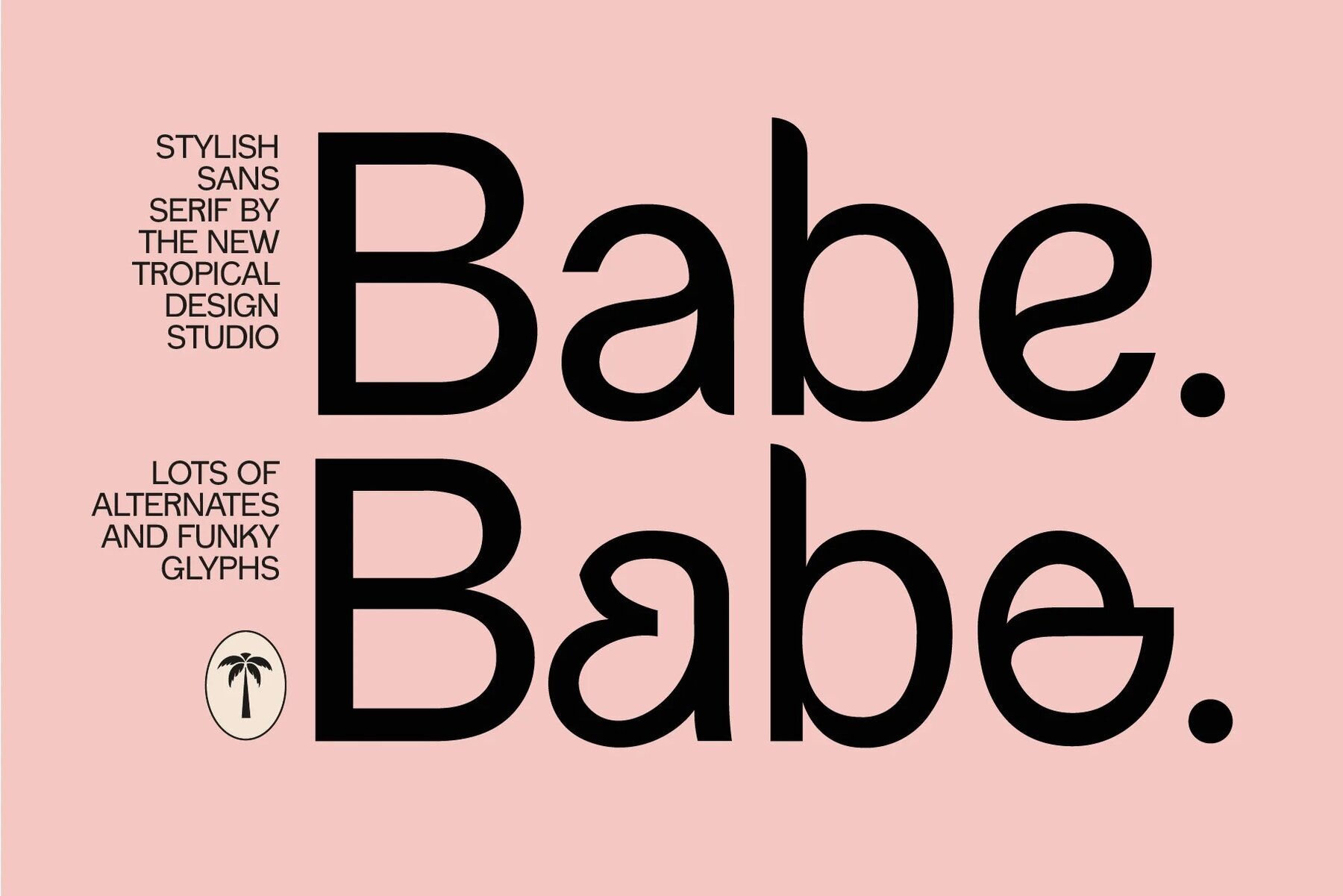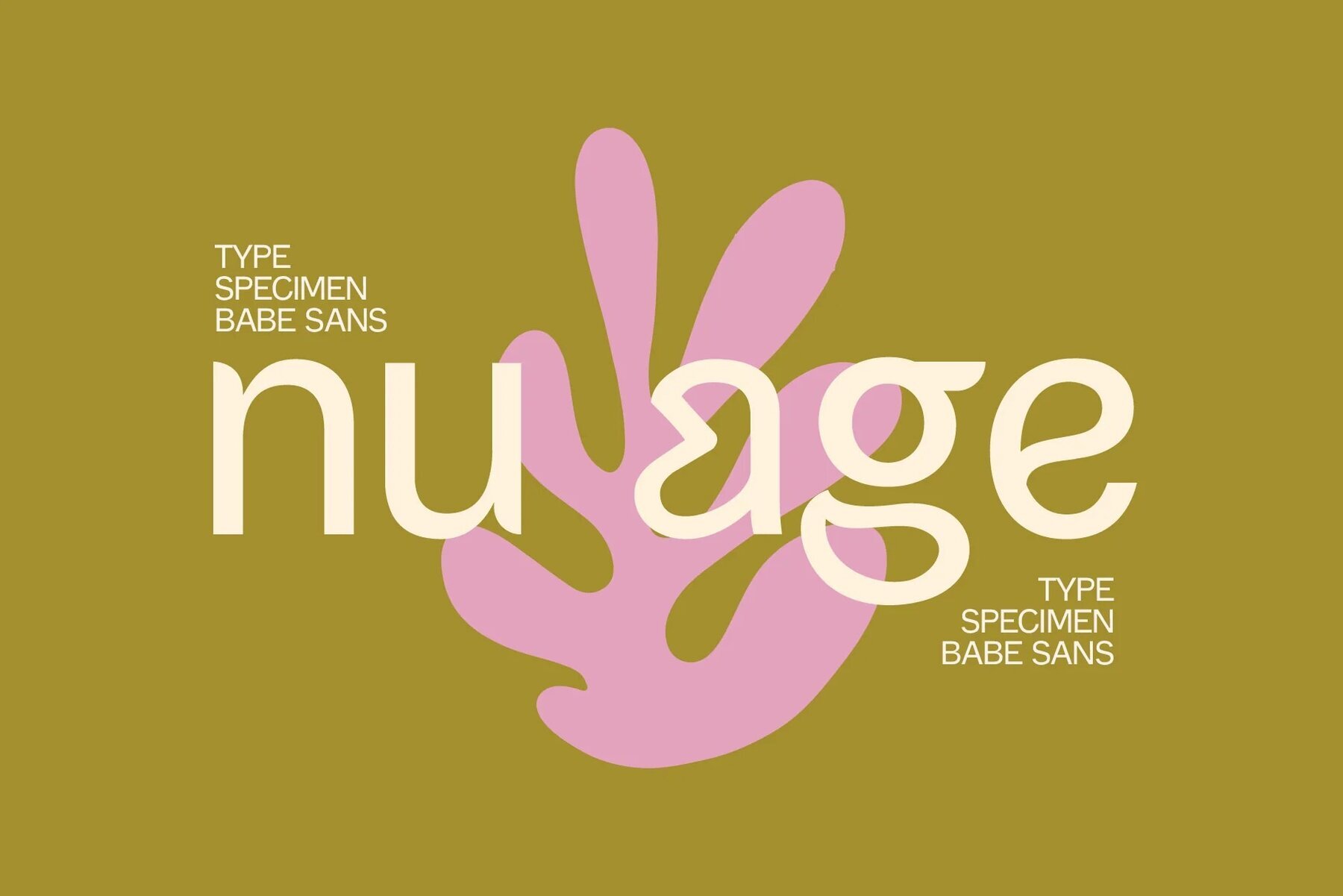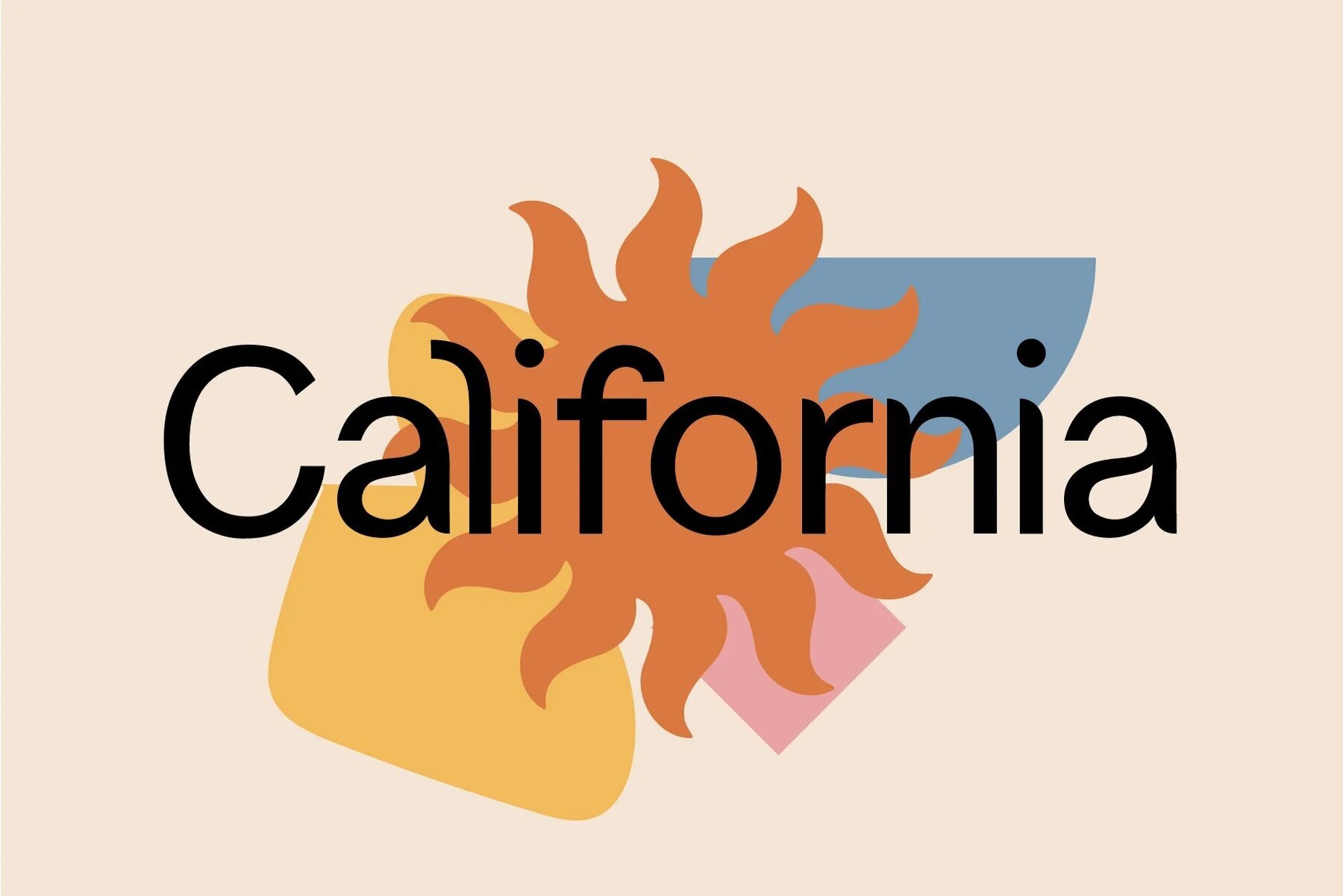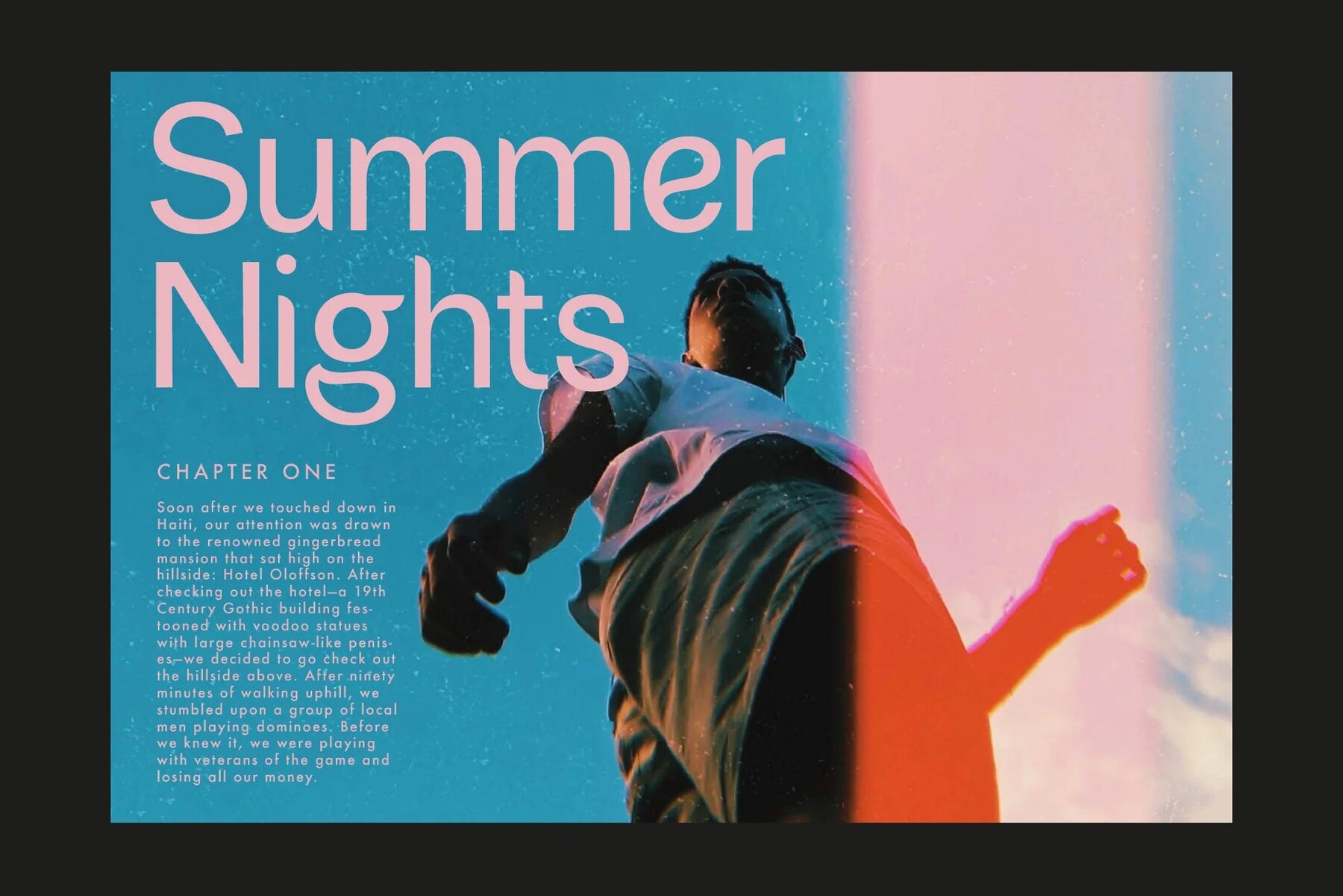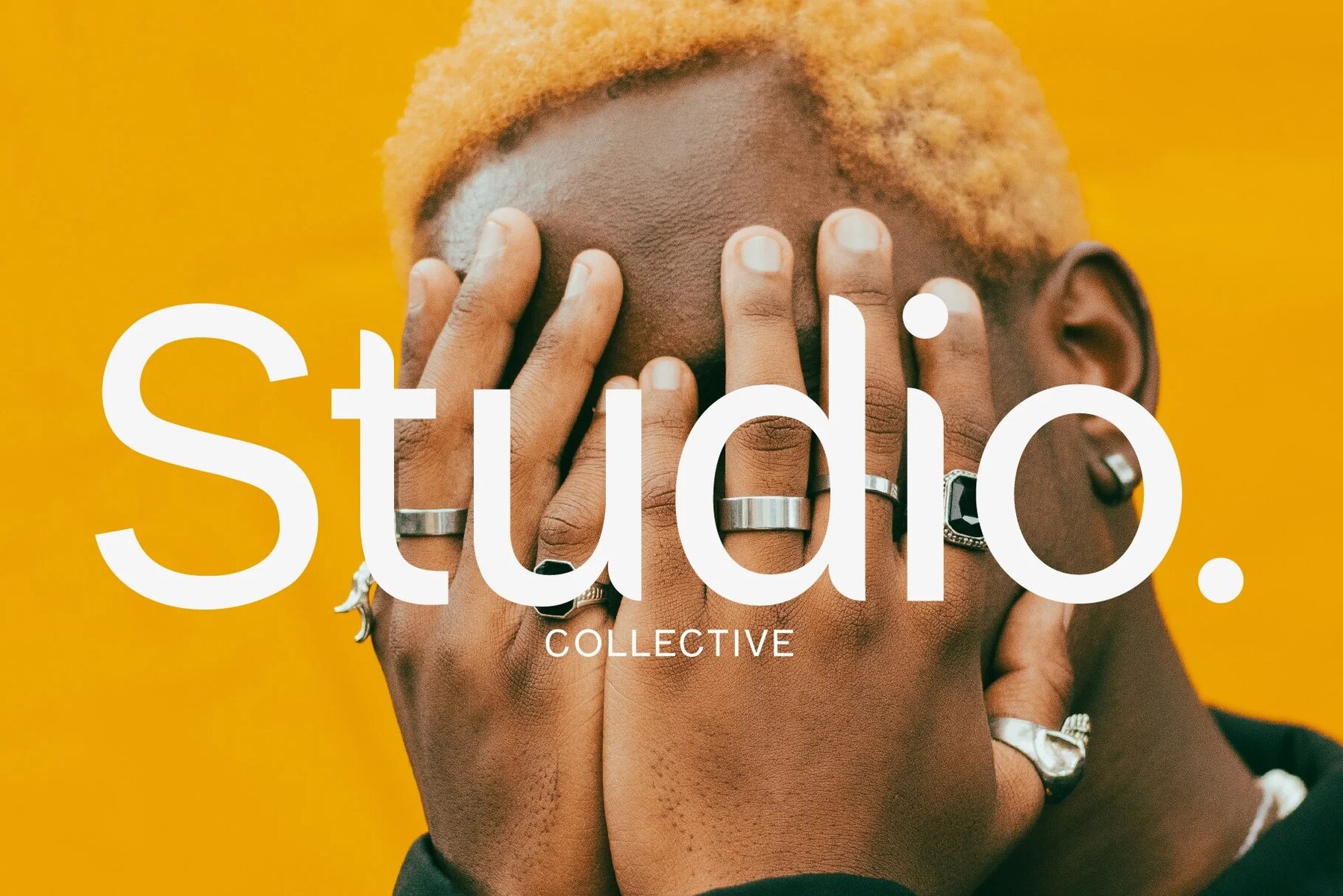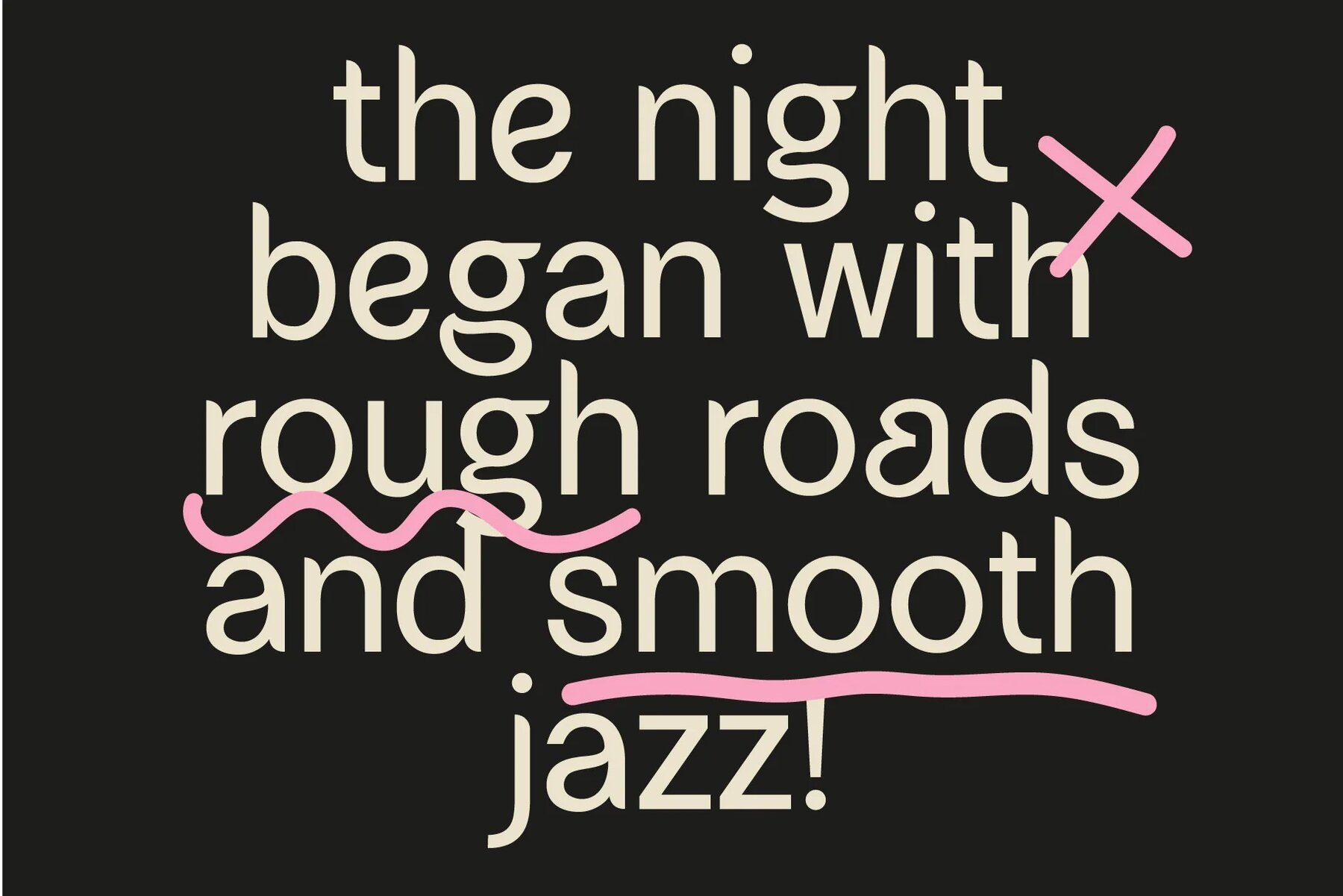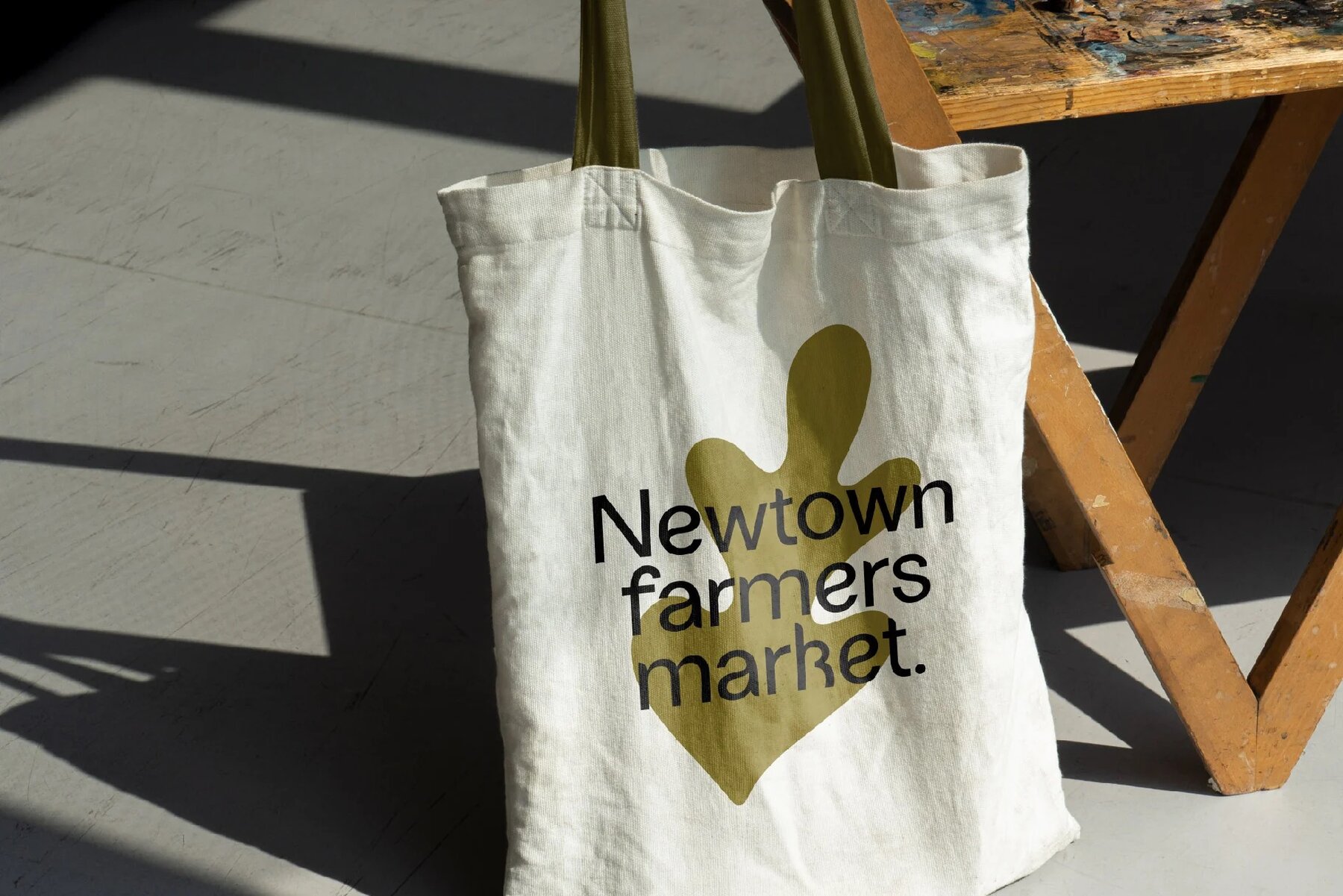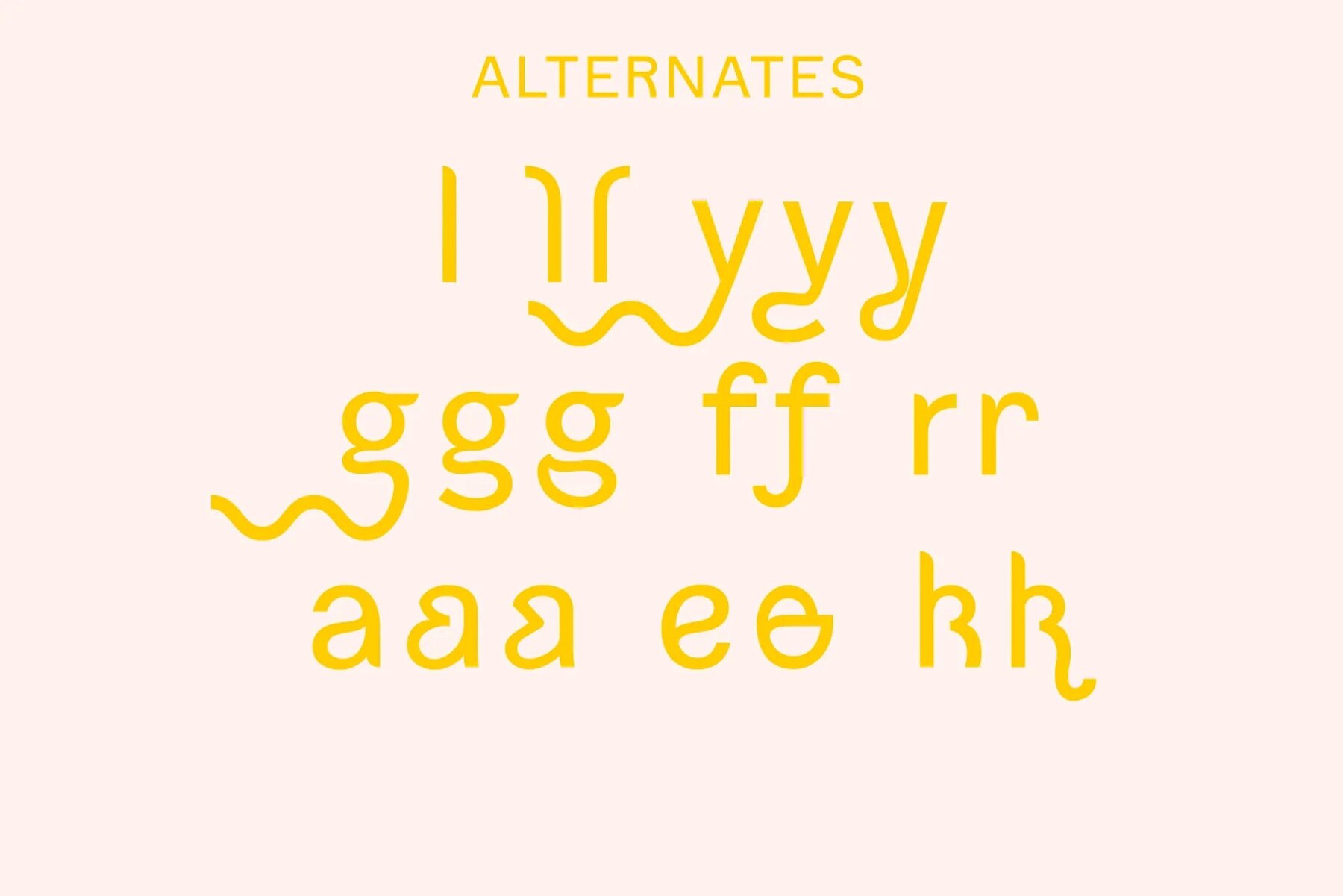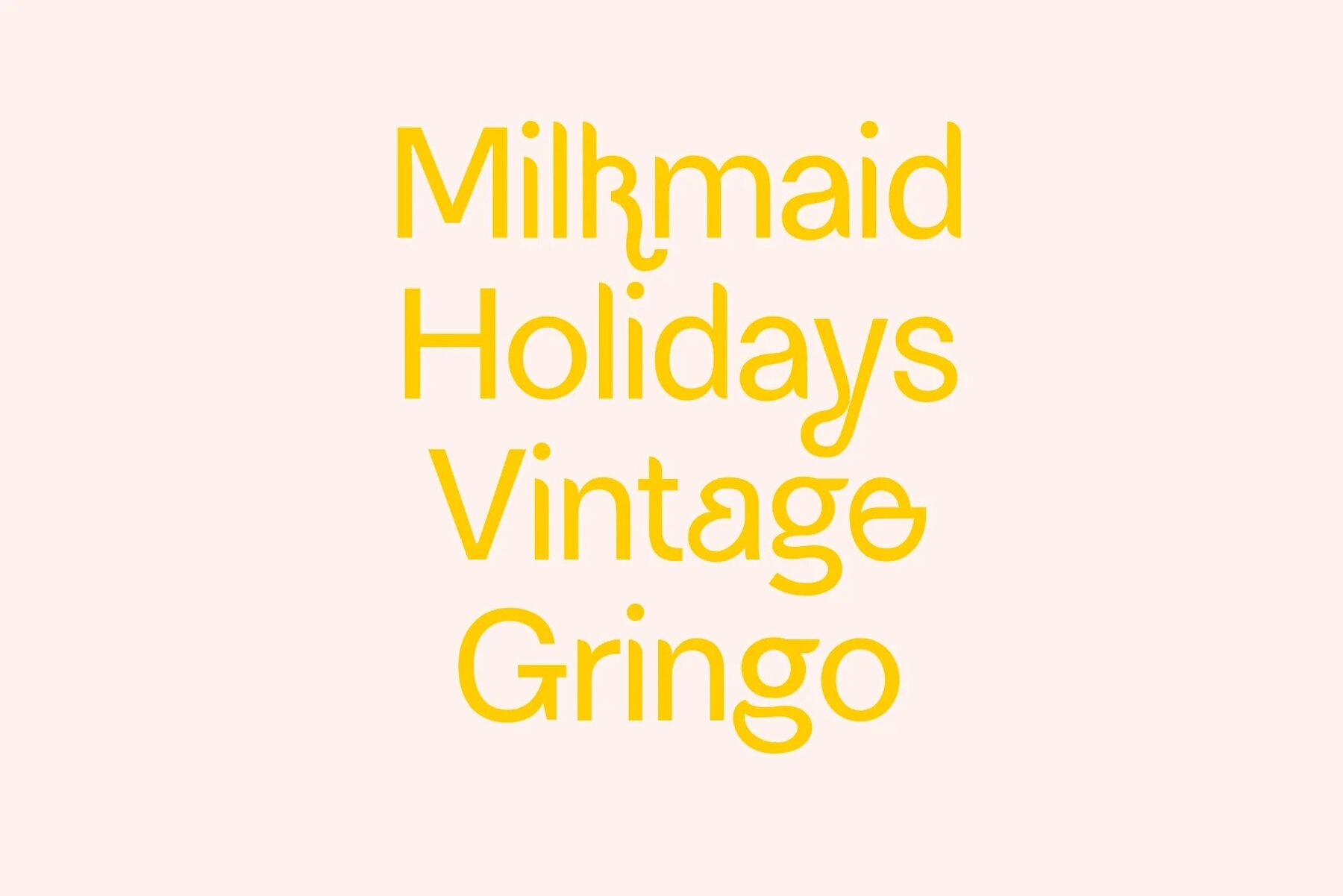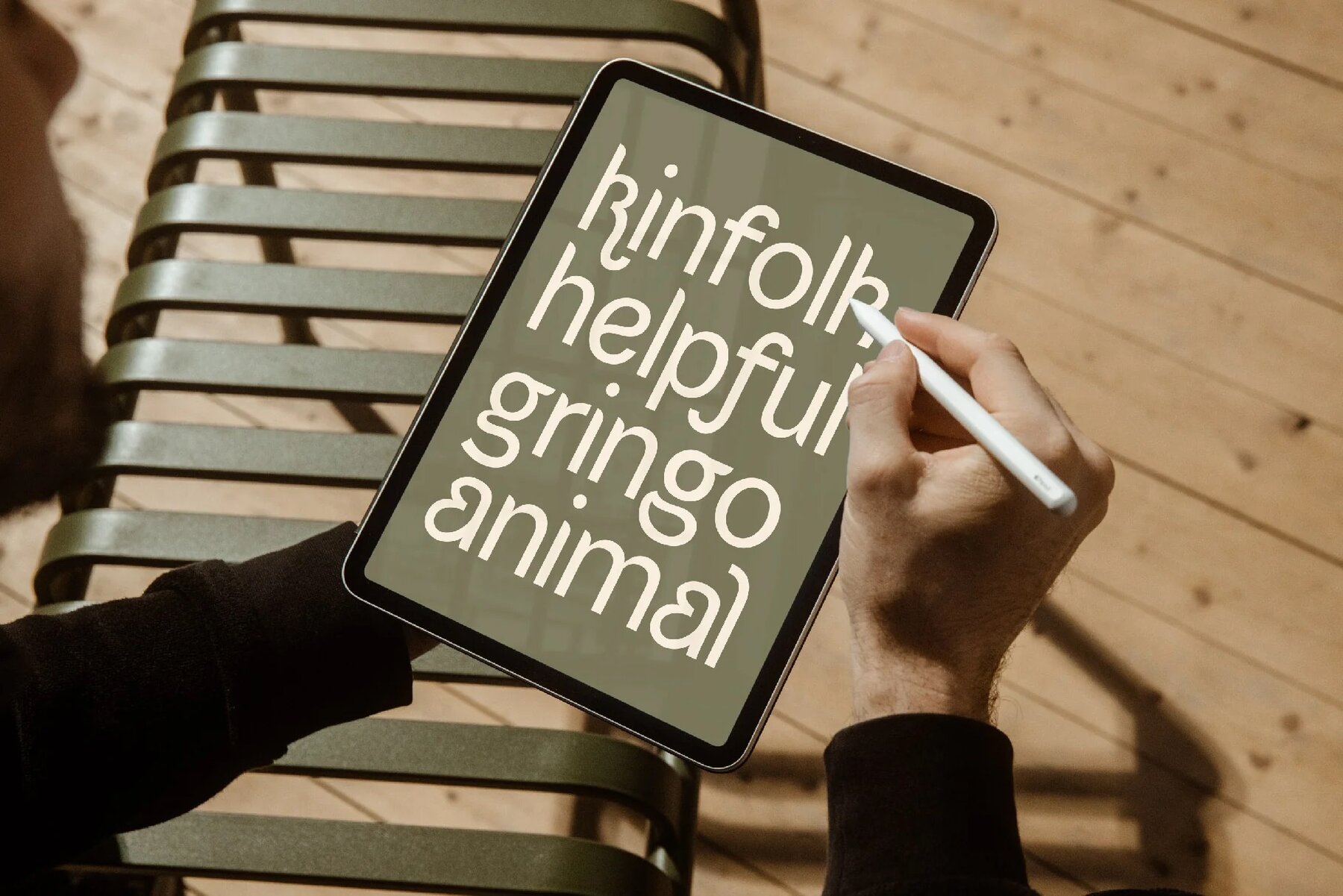
Babe Sans Font
Babe Sans is a charming and bold typeface with stylish curves that add a unique flair to any design. Its clean and legible appearance makes it perfect for both modern and classic projects. The font stands out with its groovy curves and funky alternate characters, ensuring a memorable visual impact.
This typeface includes a variety of non-English glyphs, such as ą, á, â, à, ä, å, ã, æ, ć, ç, ę, é, ê, è, ë, í, î, ì, ï, ı, ł, ñ, ń, ó, ô, ò, ö, õ, ø, œ, ś, š, ß, ú, û, ù, ü, ý, ÿ, ž, ź, ż, and their uppercase counterparts. Its broad range of characters makes it a versatile choice for diverse linguistic needs. Babe Sans brings both charm and functionality to your typography toolkit.